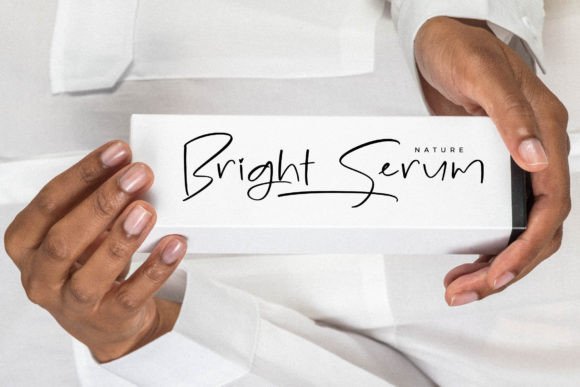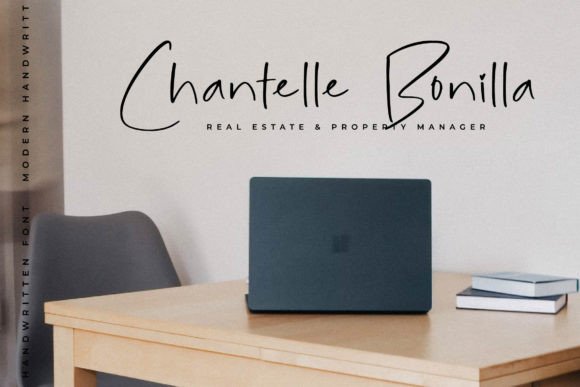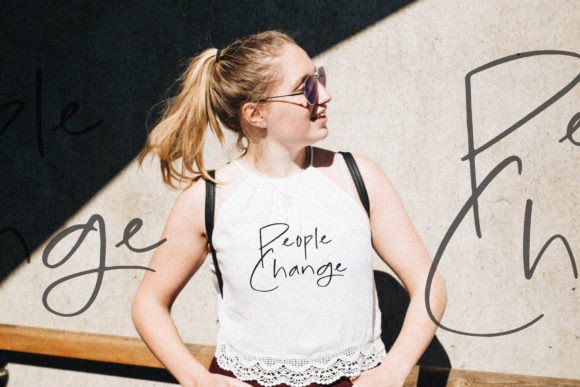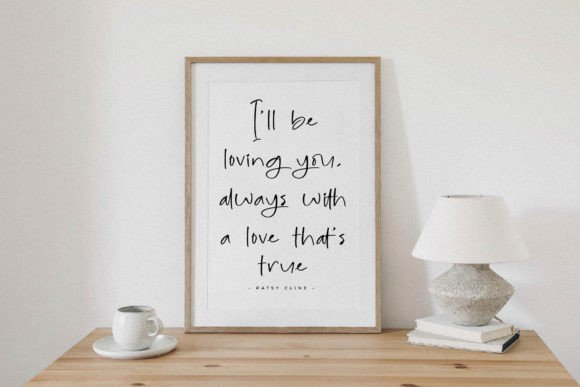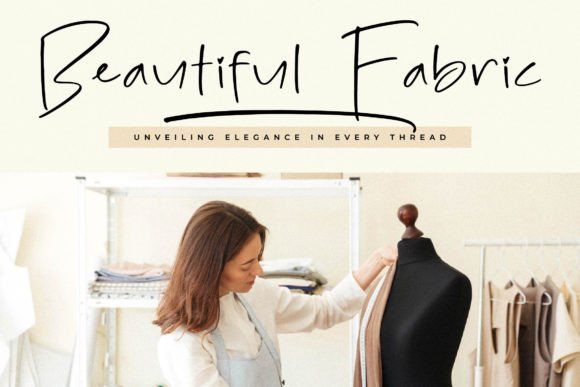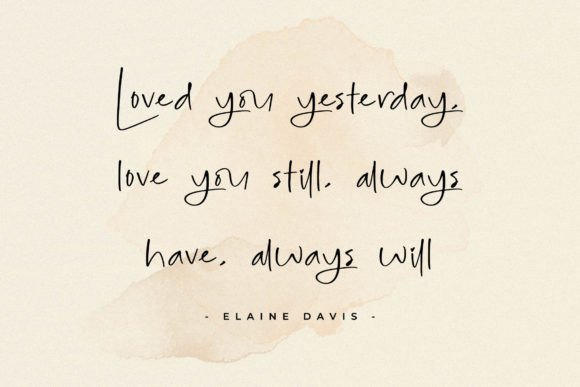
Introduction to Smiley Romantik Font
Smiley Romantik is a modern handwritten font.
It’s suitable for any projects such as logos, branding projects, homeware designs, product packaging, mugs, quotes, posters, shopping bags, t-shirts, book covers, name cards, invitation cards, greeting cards, labels, photography, watermarks, and special events .
Key Features of Smiley Romantik Font